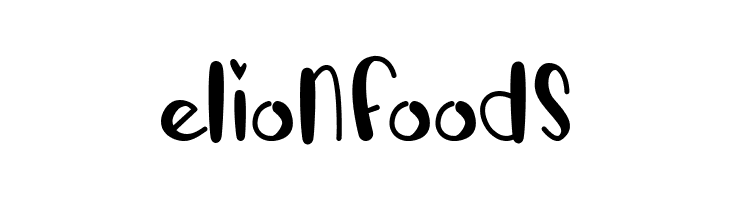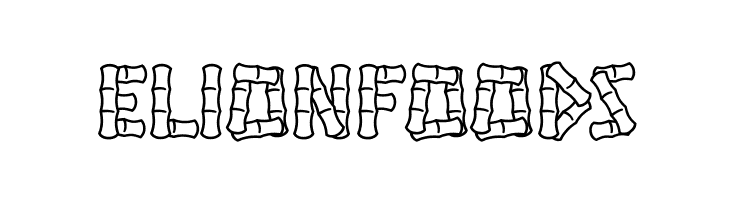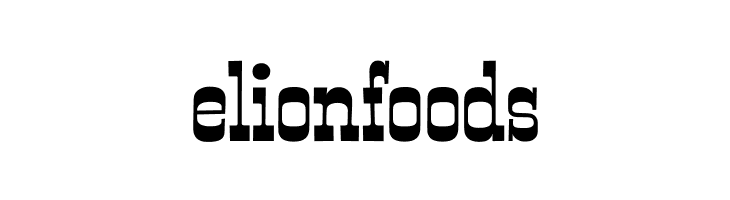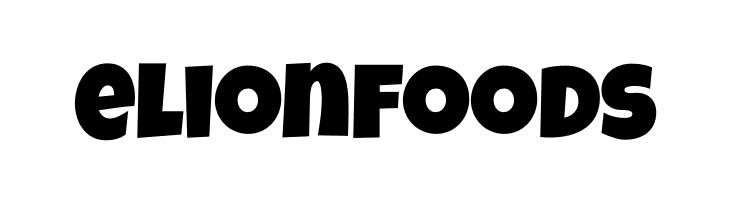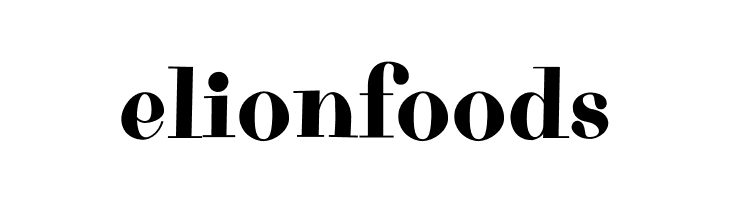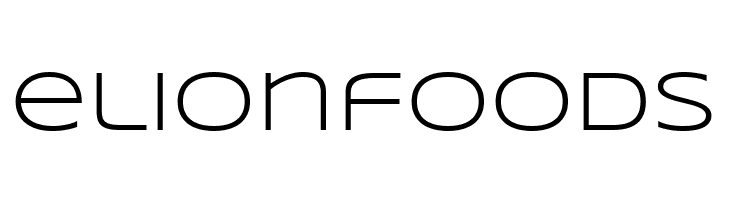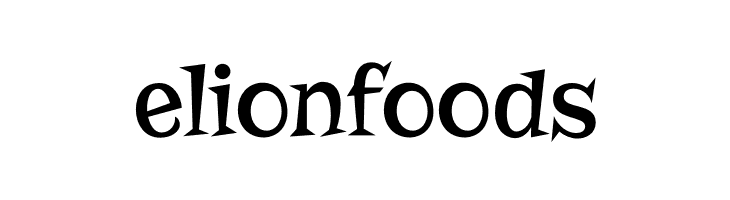
A decorative set of horse and equestrian-themed pictograms and icons.
( Fonts by Wildan Suprian syah )
A playful, hand-drawn font with a childlike, whimsical style.
( Fonts by Astigmatic )
A playful, hand-drawn style font with bold, outlined characters.
( Fonts by Astigmatic )
A bold, slab serif font with a Western-inspired, vintage style.
( Fonts by Astigmatic )
A bold, playful font with rounded, cartoonish letterforms.
( Fonts by Astigmatic )
A classic serif font with high contrast and elegant serifs.
( Fonts by Backpacker )
A bold, heavy font with wide, robust characters and rounded edges.
( Fonts by Astigmatic )
A modern, geometric sans-serif font with balanced spacing and clear characters.
( Fonts by Astigmatic )
A tall, elegant font with playful, whimsical elements and subtle serifs.
( Fonts by Astigmatic )
A playful and whimsical font with exaggerated curves and sharp edges.